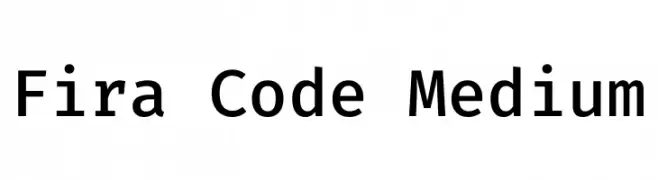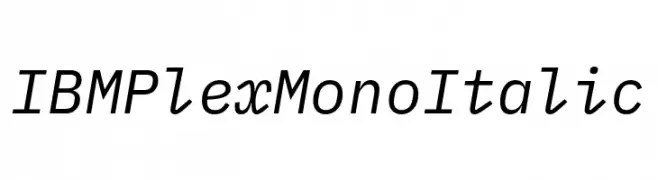
A modern, monospaced font with a clean and minimalistic design.
A modern, monospaced italic font with consistent stroke weight and clear readability.
A modern, monospaced font with a technical and geometric design.
A modern, monospaced font with clean lines and excellent readability.
A geometric, monospaced font with a modern and technical style.
A modern, monospaced font perfect for coding and technical documentation.
A clean, modern monospaced font with equal-width characters and low contrast.
A bold, monospaced font with a modern and clean design, ideal for coding and data presentation.
A modern, italic monospaced font with a clean and balanced design.
A modern, monospaced font perfect for coding and technical documents.